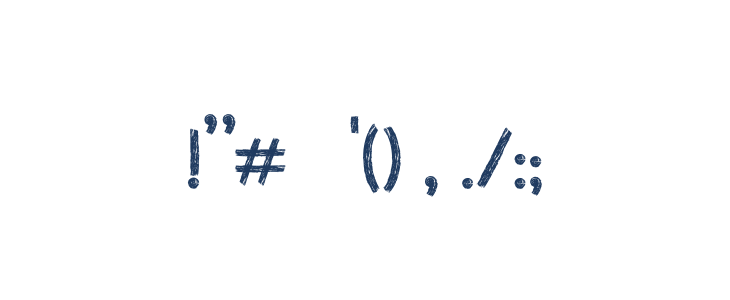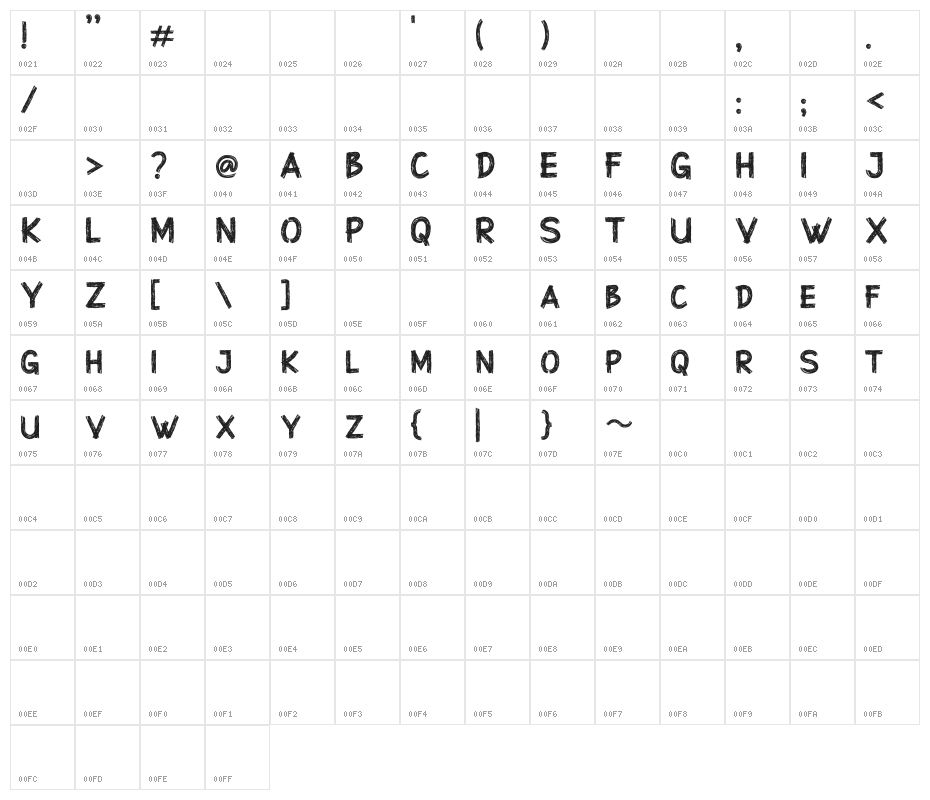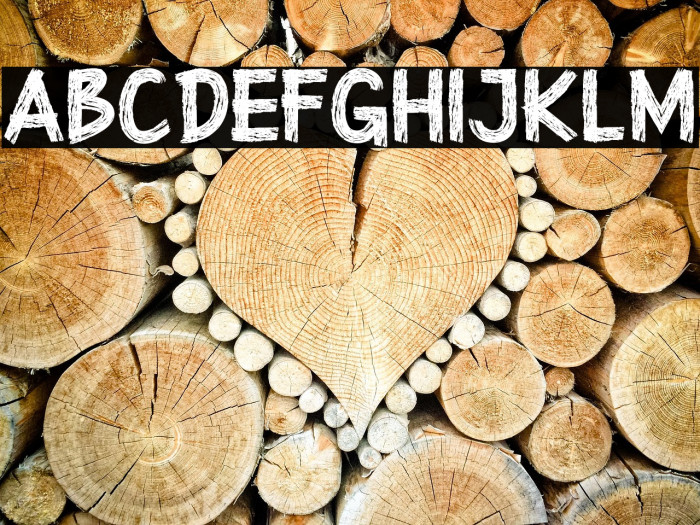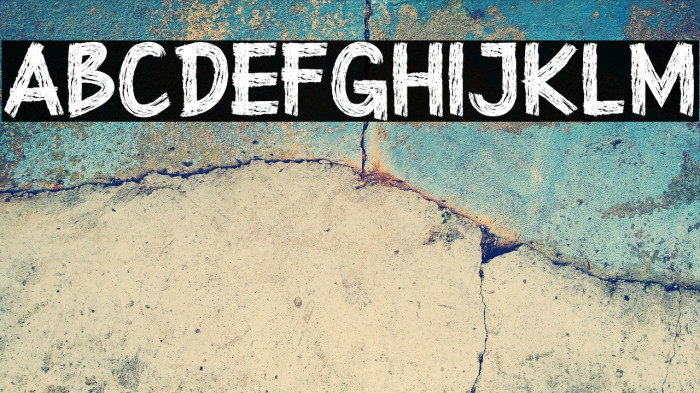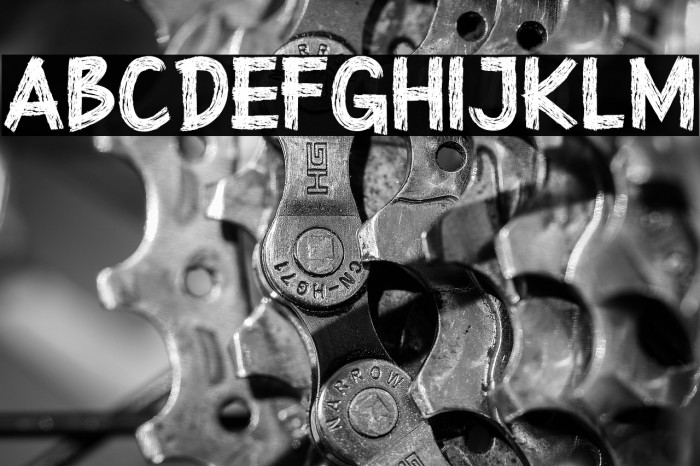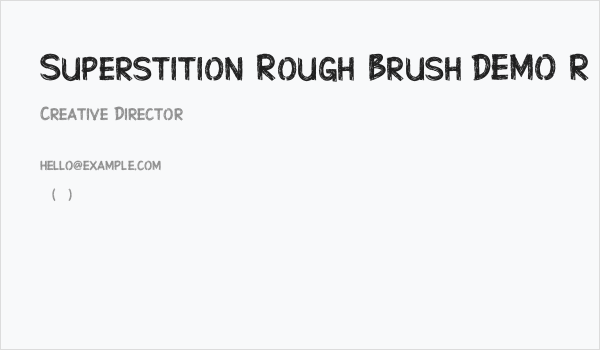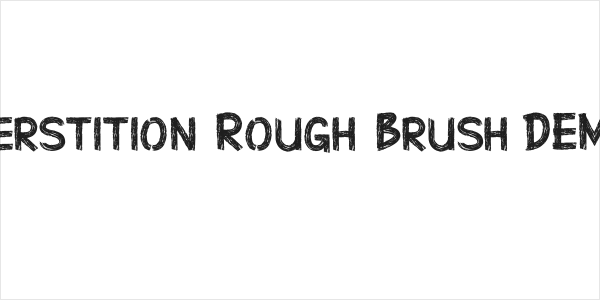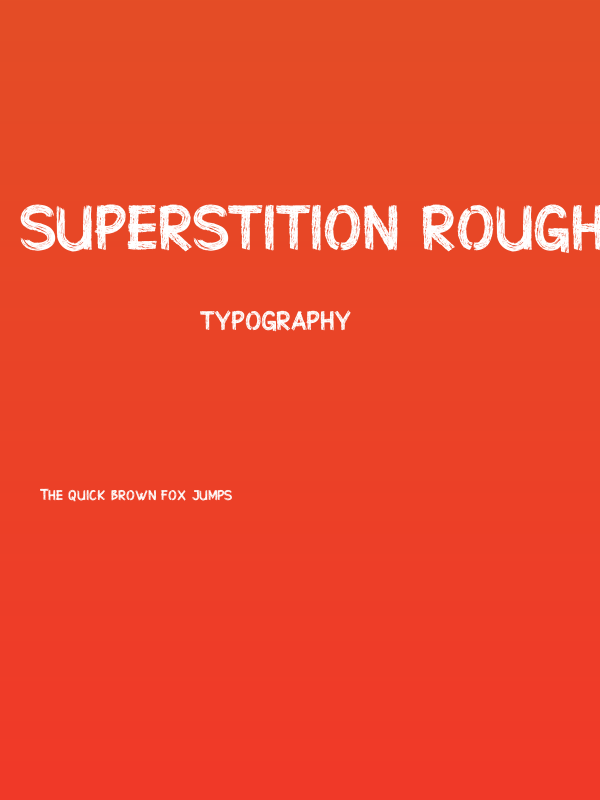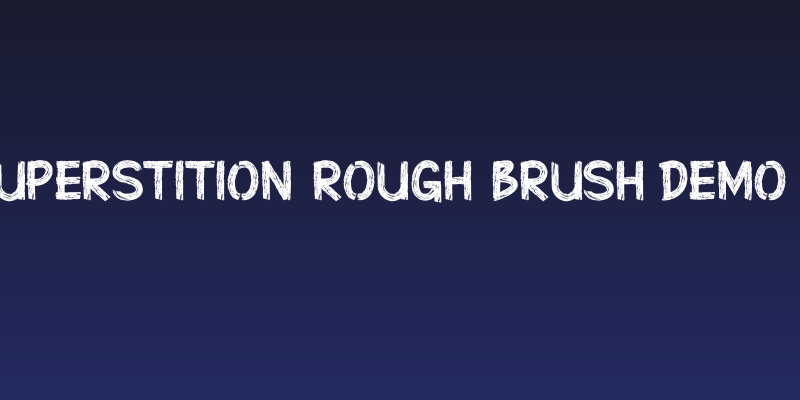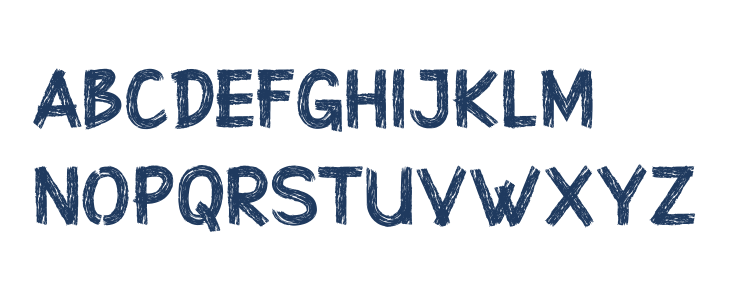
Superstition Rough Brush-DEMO R Font
Superstition Rough Brush-DEMO R Description
This font features a bold, rough brush style that exudes a sense of energy and dynamism. The characters are crafted with a textured, hand-drawn appearance, giving them a raw and organic feel. The uppercase and lowercase letters maintain a consistent style, with slightly irregular edges that enhance the font's rugged aesthetic. The numbers and special characters follow the same design principles, ensuring a cohesive look across all elements. This font is ideal for projects that require a bold statement or a creative, artistic touch.